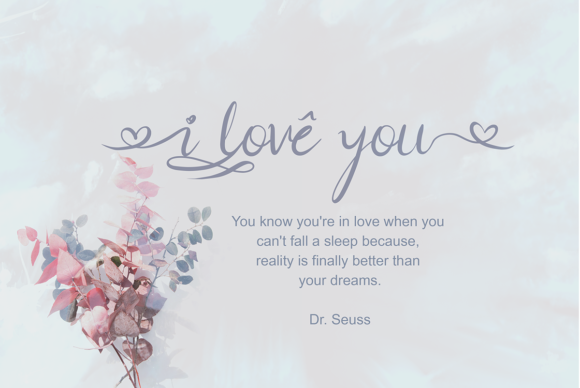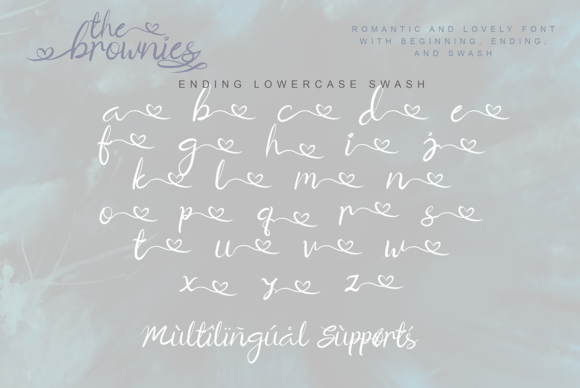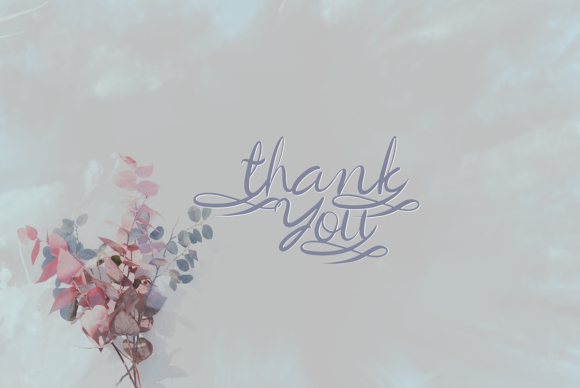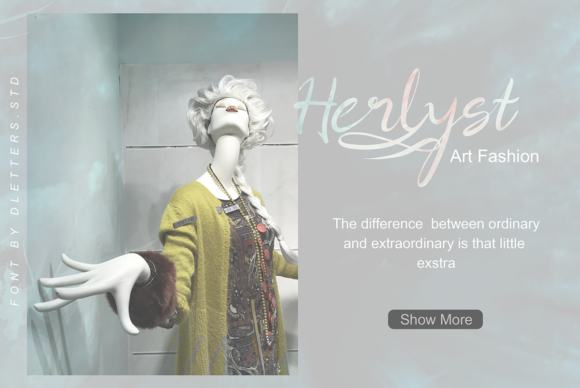
About The Brownies Font
The Brownies is a delicate and romantic handwritten font.This font is PUA encoded which means you can access all of the glyphs and swashes with ease! Dainty and joyful, this font will be ideal for writing wedding invitations, cards or any other design that may need a romantic, personalized touch!